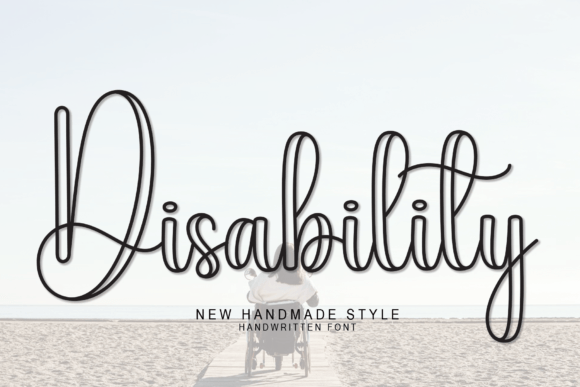
Introducing Disability Font, a captivating creation by Roronoa Zoro.S.P.D. Immerse yourself in the beauty of this script font, meticulously crafted to infuse your designs with vintage charm. Disability Font's enchanting handwritten style adds a touch of elegance and authenticity to your projects. With its versatile nature, this font effortlessly adapts to various applications, making it a must-have for designers and creatives seeking a distinct vintage aesthetic.
Embark on a journey of creative expression with Disability Font. Let your imagination soar as you explore the endless possibilities it offers. Design enchanting logos that exude a timeless appeal, create captivating social media posts that resonate with your audience, or craft stunning invitations and greeting cards that leave a lasting impression. The possibilities are limitless, bound only by the depths of your creativity.
Disability Font possesses an innate ability to transform ordinary designs into extraordinary masterpieces. Its captivating curves and elegant strokes command attention, making your creations stand out from the mundane. Embrace the power of vintage aesthetics and unlock a world of design possibilities with Disability Font.
For those seeking a font that embodies the essence of vintage charm, Disability Font is the ultimate choice. With its timeless appeal and versatility, this font breathes life into your creative projects, transforming them into captivating works of art. Seize the opportunity to elevate your designs and leave an unforgettable mark on your audience.